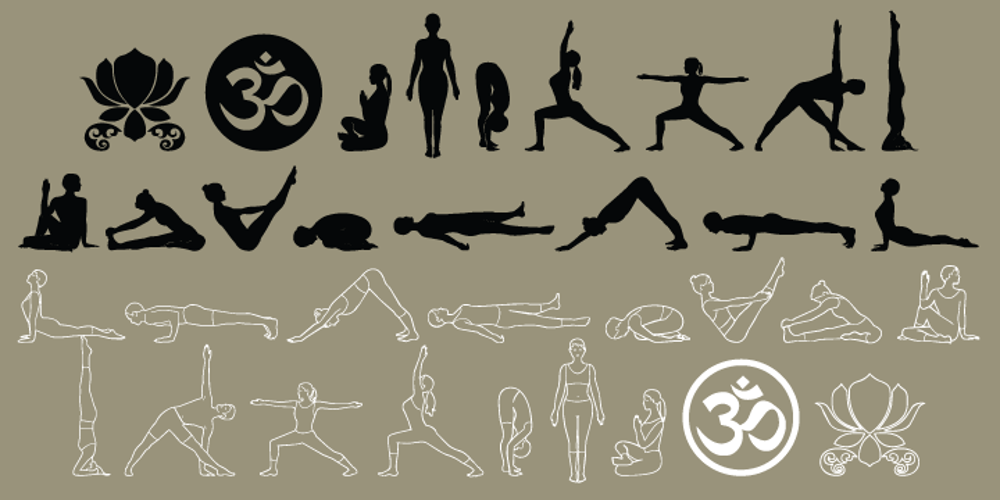
Yoga Studio
Yoga Studio font
Yoga Studio Font Family was designed by Rae Kaiser, Nancy Vala and published by Outside the Line. Yoga Studio contains 1 styles and family package options. 15 poses as line drawings and the same 15 in reverse, plus the OM graphic and a lotus flower. Yoga Studio, a set of detailed yoga poses that are both useful and elegant. Tadasana, trikonasana, savasana — from mountain pose to relaxation pose you will find what you need to put together a sun salutation vinyasa, basic instructions for beginning students or a visual guideline for your own personal practice.